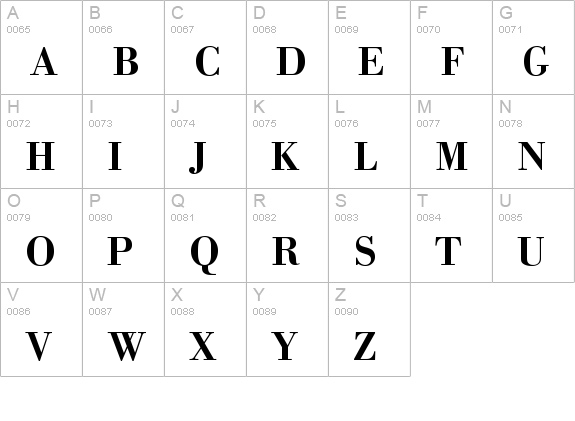
Bodoni Berthold Exp BQ Medium Font Details
Bodoni Berthold Exp BQ Medium is a balanced, medium-weight variant in the Bodoni typeface family \xE2\x80\x94 well suited to sub-headlines, navigation, and balanced editorial work.
Bodoni Berthold Exp BQ Medium font exudes elegance and sophistication with its sleek lines and timeless design. This modern typeface strikes the perfect balance between classic and contemporary, making it a versatile choice for a wide range of design projects. The medium weight of the font adds a sense of authority and clarity to any text, making it ideal for headlines, titles, and branding materials. Best of all, Bodoni Berthold Exp BQ Medium font is available for free download at FontsMarket.com. This means you can easily access and use this high-quality typeface in your projects without any cost. Whether you're working on a print design, web project, or branding campaign, this font is sure to add a touch of sophistication and style. Download Bodoni Berthold Exp BQ Medium font today and elevate your designs with this timeless typeface.